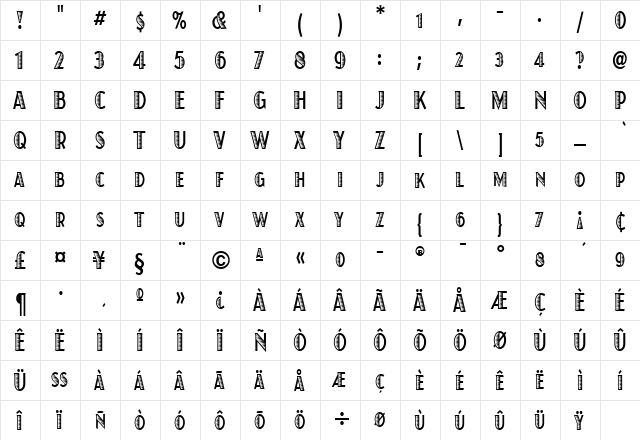
Juanita Xilo Condensed ITC Condensed
Design Context for Juanita Xilo Condensed ITC Typeface
Juanita Xilo Condensed ITC is a composed and adaptable typeface that performs quietly and consistently across a wide range of design contexts. The condensed width makes it efficient for tight spaces without sacrificing legibility.